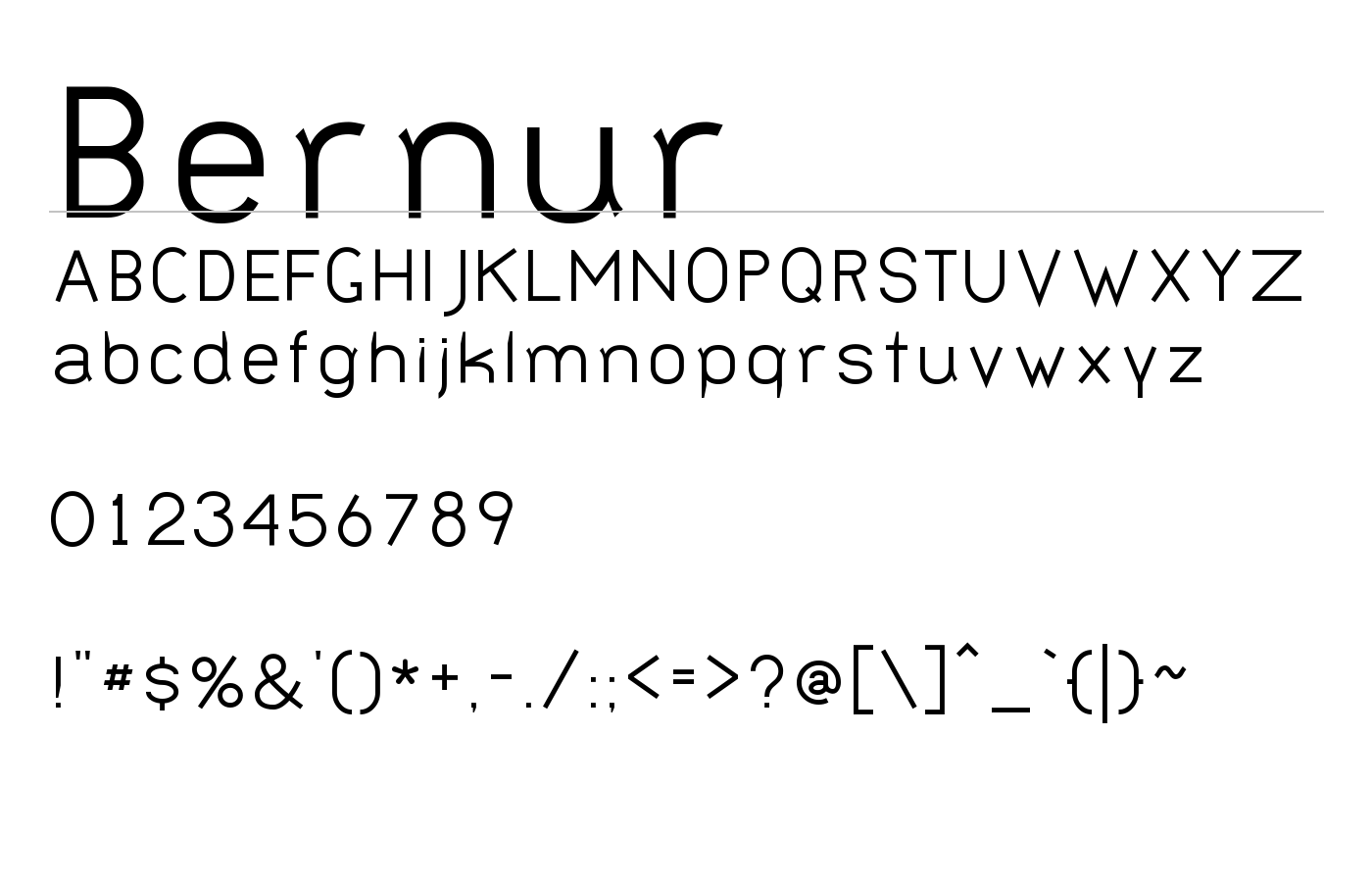
Bernur is a sleek, modern sans serif font with a clean, geometric look and a light to regular weight that gives it an airy, elegant feel. Its tall x-height combined with simple, rounded letterforms and subtle unique touches—like the distinctive tail on the lowercase "r"—make it highly readable and stylish. This versatile typeface works well for contemporary branding, editorial design, and web projects that need a sophisticated yet approachable tone.
Bernur Font
About Bernur Font